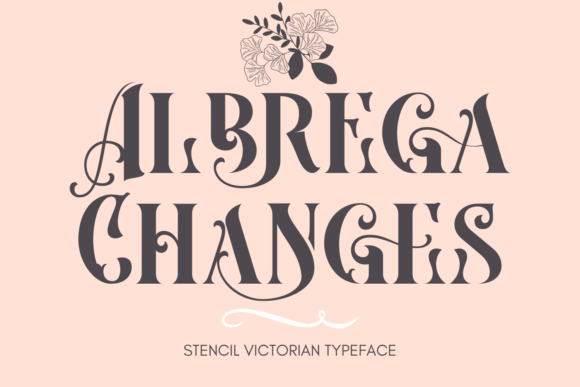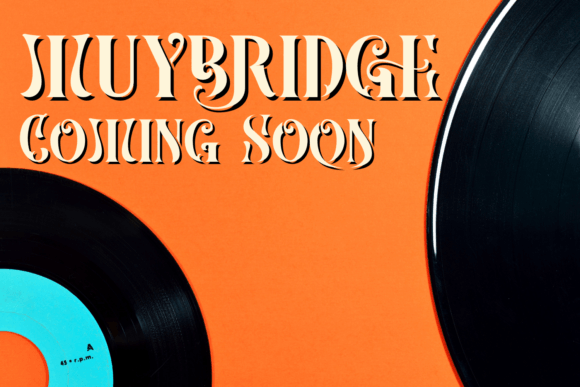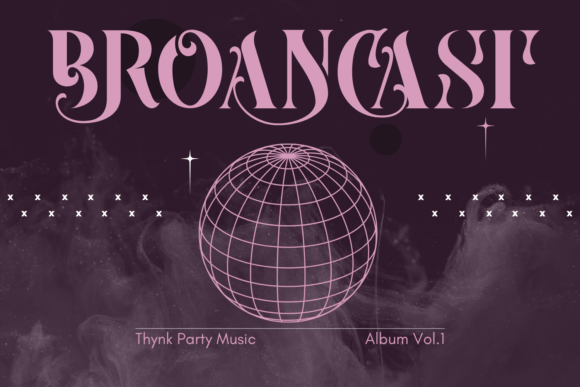
Welcome to the world of Albrega Changes Font, a typeface that will inspire your next great project. Albrega Changes is a stylish serif typeface with splendid ligature & alternates. This typeface can also be categorized in a more modern Victorian style by carrying a slight stencil modification. This font is also an all-caps font with different letters and character heights. It is suitable for any branding purpose. This font is PUA encoded, which means you can access all of the glyphs and swashes with ease!
Albrega Changes’ bold, yet sophisticated personality makes it ideal for headlines, logos, and short impactful text within branding materials or posters. Its distinctive character is less suited to body text or long paragraphs; the varied letter heights and all-caps format can hinder readability in extended use. Avoid using it in UI contexts requiring high legibility.
To complement its Victorian-inspired boldness, consider pairing Albrega Changes with a clean sans-serif like Futura or a geometric sans-serif such as Roboto for a contemporary contrast. For a more traditional feel, a neutral serif like Garamond or a slightly more playful script font could work well, balancing its strong personality.
The stencil-like modifications give it a unique edge, suitable for brands projecting a sense of confident modernity with a touch of historical flair. Think luxury goods, boutique hotels, or artistic ventures.